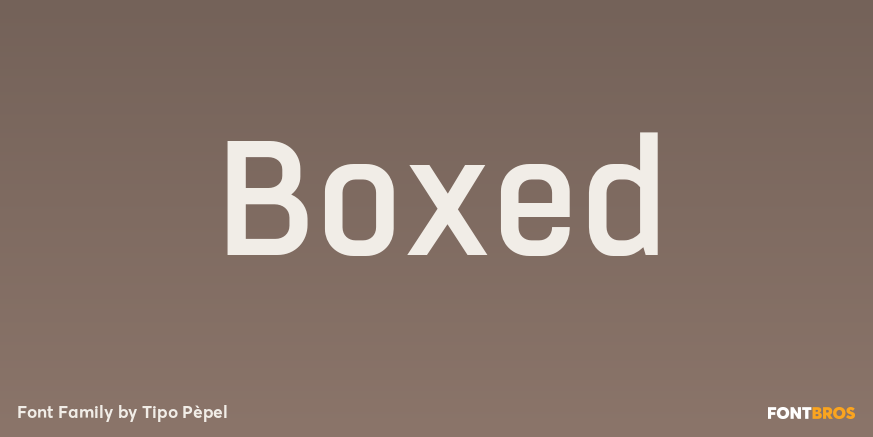
Boxed
About Boxed
Boxed typography is a new and extensive 18 weight typeface, brightly conceived and designed to look good on small screen devices, but offering also enlightened looks on paper. The semi-modular geometric font shapes seek to be fully responsive to the grid…